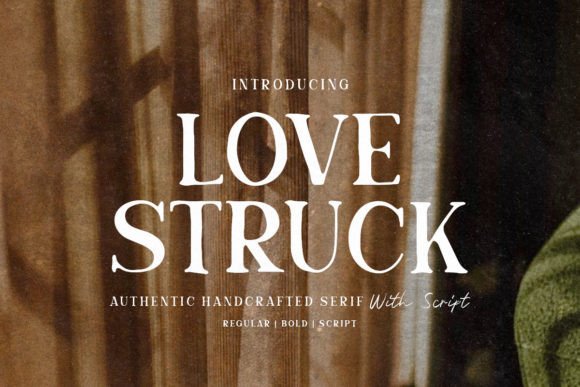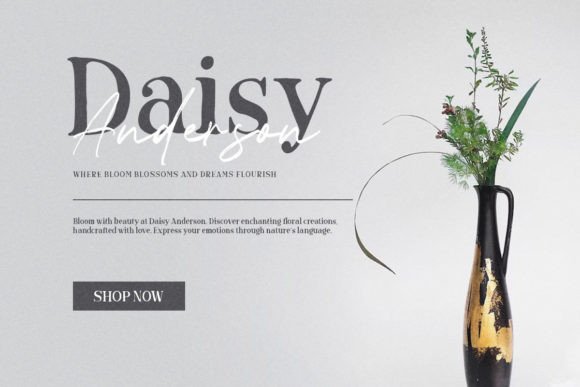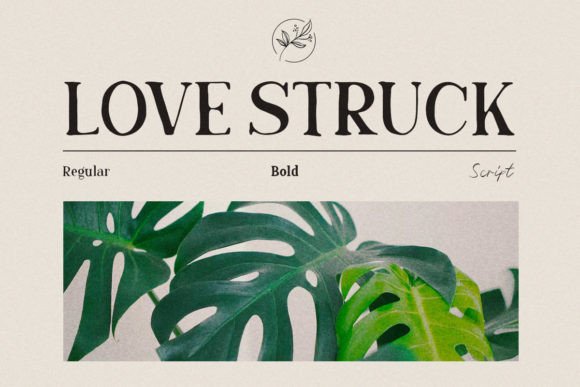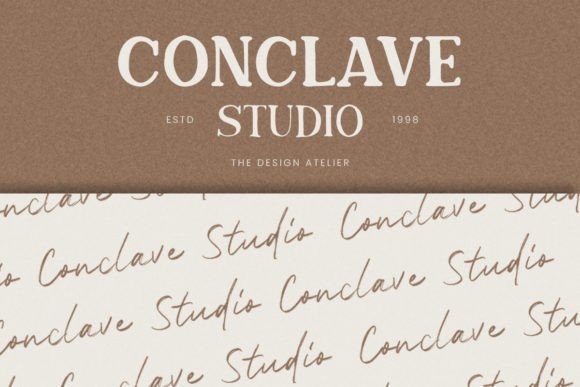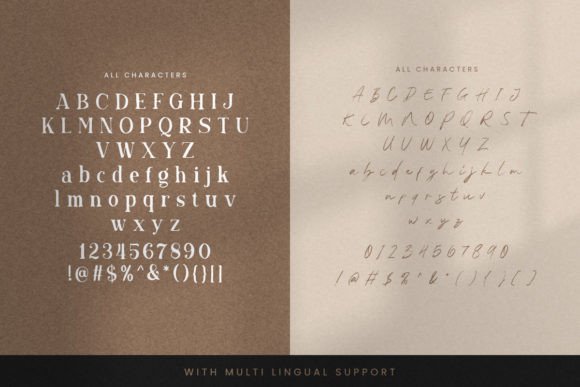
Love Struck Font
Combining handcraft serif and simple script, Love Struck is an authentic typeface that gracefully marries a delicate and refined aesthetic with a hint of rustic charm.This font perfectly made to be applied especially in logo, and the other various formal forms such as invitations, labels, logos, magazines, books, greeting / wedding cards, packaging, fashion, make up, stationery, novels, labels or any type of advertising purpose.